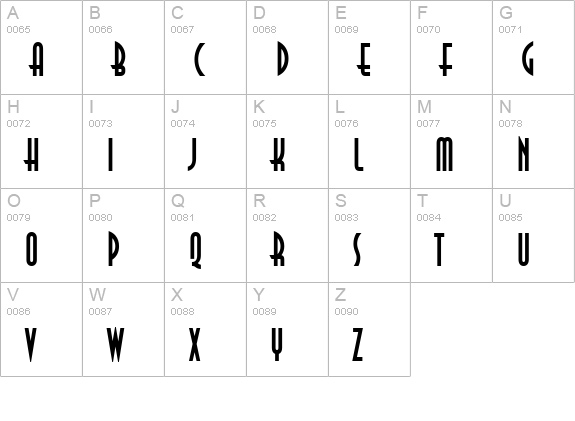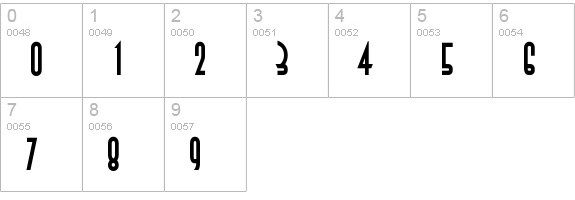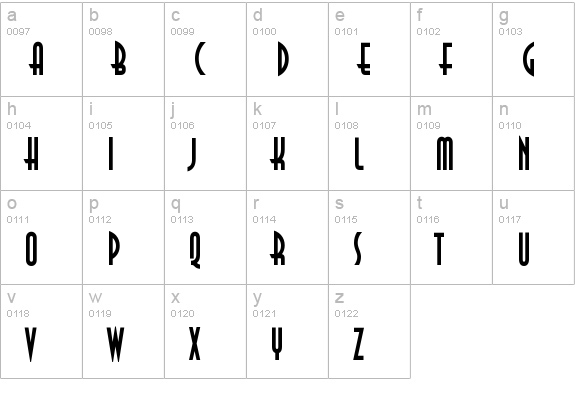
Astrid Long Font Details
Introducing Astrid Long, a modern and elegant typeface designed to add a touch of sophistication to your projects. With its sleek and stylish letterforms, Astrid Long exudes a sense of professionalism and class. This font is perfect for a wide range of design applications, from branding and advertising to editorial and packaging. What sets Astrid Long apart is its versatility - it can be used in both headlines and body text, making it a practical choice for various design needs. The sleek lines and elongated proportions of this font give it a unique and contemporary look that will make your designs stand out. Best of all, Astrid Long is available for free download at FontsMarket.com. So go ahead and add this versatile and stylish font to your collection today!